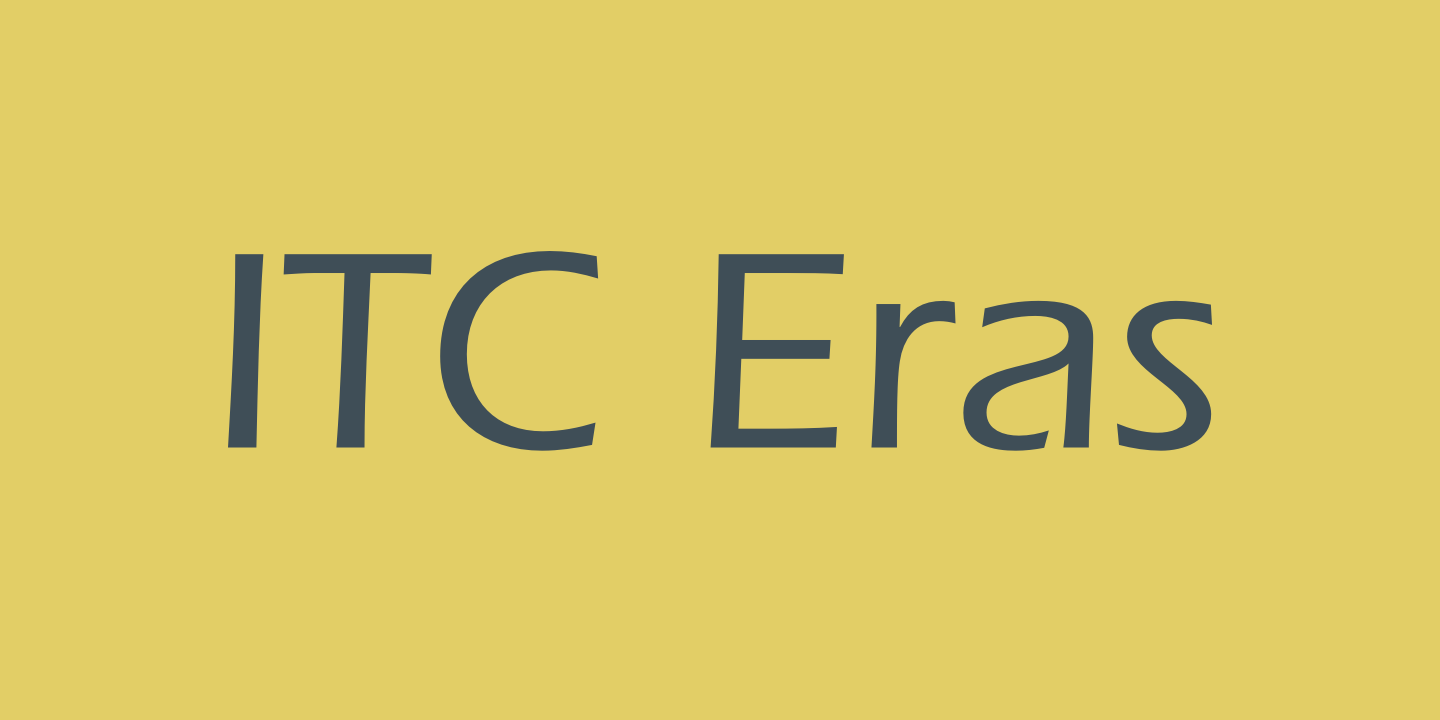
ITC Eras Font is perfect for contemporary branding, architectural signage, corporate identity systems, modern advertising campaigns, tech company logos, progressive marketing materials, clean web design, minimalist packaging, institutional communications, and any projects that require bold geometric typography with timeless modernist appeal and sophisticated simplicity.
What makes ITC Eras Font exciting is its distinctive geometric construction that achieves perfect balance between bold presence and refined elegance through carefully crafted letterforms with unique character details. This influential typeface features clean lines with subtle humanist touches that prevent the coldness often associated with purely geometric fonts, creating warmth and approachability while maintaining strong visual impact. The font's modernist character makes it perfect for brands seeking to communicate innovation, reliability, and forward-thinking design philosophy with timeless appeal.
ITC Eras Font family includes comprehensive geometric weights featuring light, book, medium, bold, and ultra bold options. The font family also offers demi and heavy variants that provide maximum flexibility for hierarchical typography, along with condensed versions for space-efficient applications. Special features include distinctive letterforms, optimized spacing, and carefully balanced proportions that ensure excellent performance across all contemporary design applications.
Define your era with ITC Eras Font Free Download and establish your brand with typography that represents the perfect synthesis of geometric precision and human warmth. This iconic typeface delivers exceptional versatility across all modern communication challenges, ensuring your message resonates with contemporary audiences who appreciate clean, sophisticated design. Download ITC Eras Font today and build your visual identity with typography that bridges past and future, creating lasting connections with audiences who value both innovation and the enduring principles of excellent typographic design.